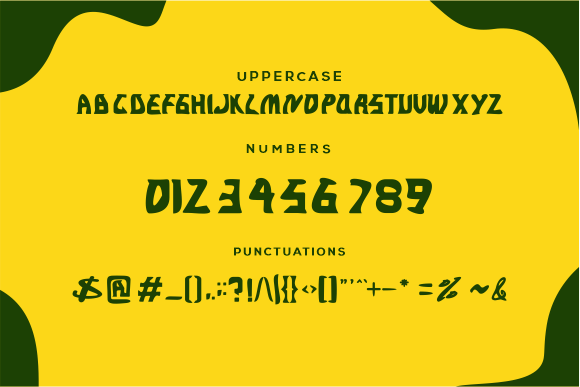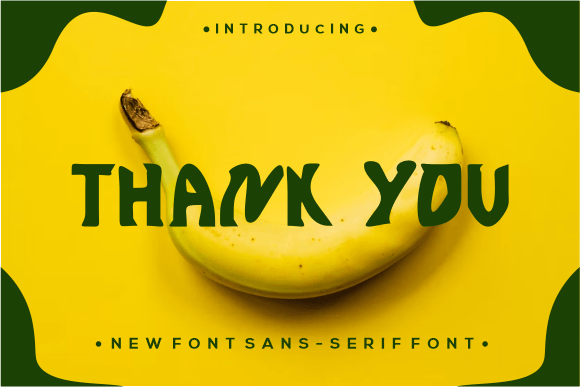
Introducing Cutelizer Font: Elevate Your Designs with a Fun and Whimsical Touch
In the world of design, fonts play a crucial role in bringing creative ideas to life. A well-chosen font can instantly elevate a design, making it more engaging, visually appealing, and effective in communicating the intended message. If you’re a designer or crafter looking to add a fun and whimsical touch to your projects, look no further than the Cutelizer Font. This versatile display font is incredibly versatile, making it an excellent addition to your font collection.
What is Cutelizer Font?
Cutelizer is a fun and whimsical display font designed to add a playful touch to your designs. Its unique and quirky style makes it perfect for a wide range of projects, from creative crafts to digital designs. Whether you’re working on a logo, poster, social media graphic, or website, Cutelizer Font is sure to make your design stand out.
Key Features of Cutelizer Font
- Fun and Whimsical Style: Cutelizer Font boasts a playful and whimsical style that’s sure to capture the attention of your audience.
- Incredibly Versatile: This font is designed to fit a wide pool of designs, making it an excellent addition to your font collection.
- Easy to Read: Despite its playful style, Cutelizer Font is easy to read, making it perfect for use in a variety of projects.
- Highly Customizable: With Cutelizer Font, you can experiment with different colors, sizes, and styles to create a unique look that suits your design.
Why Choose Cutelizer Font?
So, why should you choose Cutelizer Font for your design projects? Here are just a few reasons:
- Adds a Personal Touch: Cutelizer Font adds a personal touch to your designs, making them more relatable and engaging.
- Perfect for Creative Projects: This font is ideal for creative projects, such as crafts, DIY tutorials, and social media graphics.
- Easy to Pair with Other Fonts: Cutelizer Font pairs well with other fonts, making it easy to create a cohesive look for your design.
- Supports a Wide Range of Languages: This font supports a wide range of languages, making it a great choice for designers who work with international clients.
How to Use Cutelizer Font in Your Designs
Using Cutelizer Font in your designs is easy. Here are a few tips to get you started:
- Use it as a Display Font: Cutelizer Font is perfect for use as a display font, making it ideal for headings, titles, and captions.
- Experiment with Colors and Sizes: Don’t be afraid to experiment with different colors and sizes to create a unique look for your design.
- Pair it with Other Fonts: Pair Cutelizer Font with other fonts to create a cohesive look for your design.
- Use it in Digital and Print Designs: This font is suitable for use in both digital and print designs, making it a versatile addition to your font collection.
In conclusion, Cutelizer Font is a fun and whimsical display font that’s perfect for designers and crafters looking to add a playful touch to their projects. Its versatility, ease of use, and highly customizable features make it an excellent addition to your font collection. Whether you’re working on a creative craft or digital design, Cutelizer Font is sure to elevate your design to the highest levels. So why wait? Add Cutelizer Font to your favorite creative ideas and notice how it makes them come alive!
- Cutelizer Font is a fun and whimsical display font.
- It’s incredibly versatile and suitable for a wide range of designs.
- It’s easy to read and highly customizable.
- It’s perfect for creative projects, such as crafts and social media graphics.
- It’s easy to pair with other fonts and supports a wide range of languages.